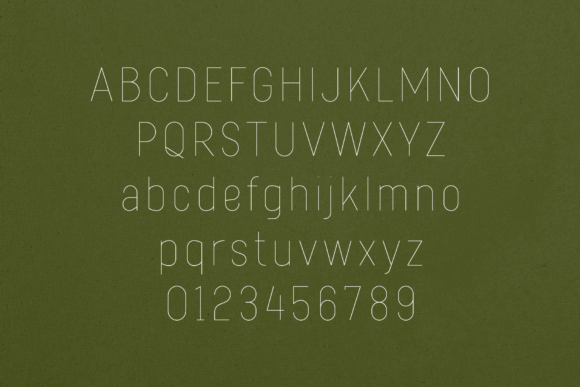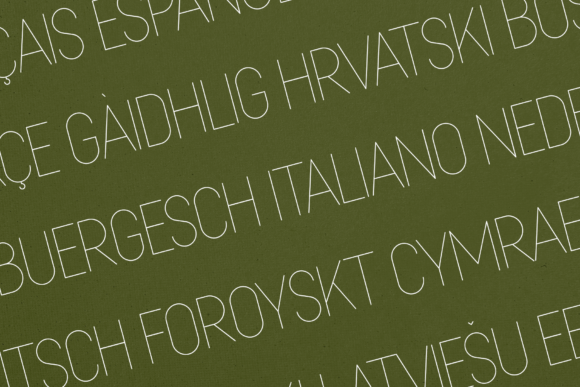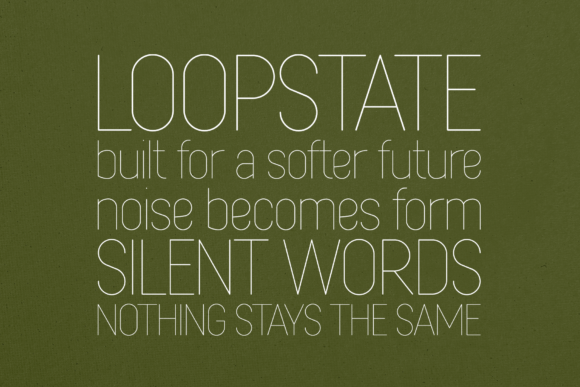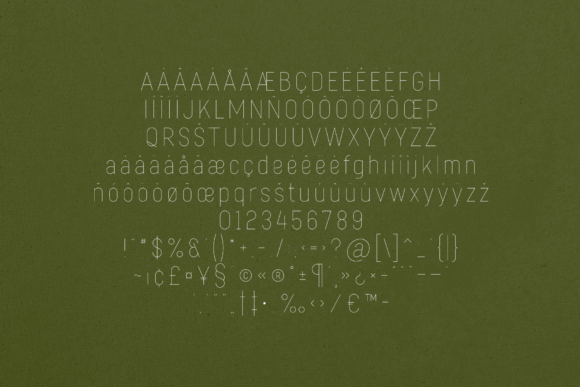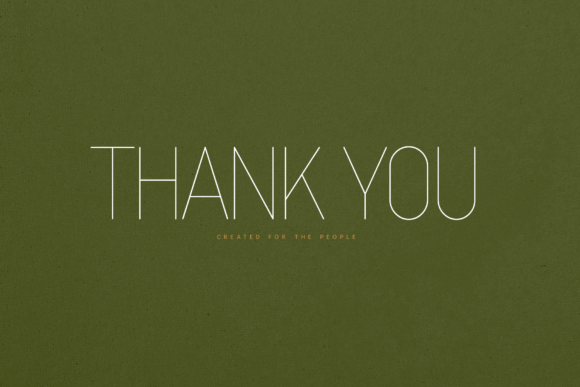
Have you ever stared at a blank page, wondering which font will bring your design to life? It’s a moment we’ve all experienced – the thrill of creation, the fear of making the wrong choice. But what if you could find a font that effortlessly elevates your work, making it stand out in a crowded world?
Enter the Azora Font, a stunning sans serif design that exudes elegance and precision. This clean, modern font is perfect for contemporary branding, editorial layouts, and posters, making it an invaluable tool for designers seeking to create refined typography projects.
The Azora Font’s airy structure, balanced proportions, and support for multilingual characters make it a versatile and valuable asset for any design project. Whether you’re working on a UI design or a creative composition, this font is sure to impress.
Azora Font Key Features
- Font Family: Azora comes in multiple font styles, including Azora Regular, Azora Italic, Azora Bold, and Azora Bold Italic.
- Unique Characteristics: Azora Font features a unique blend of modern and classic elements, with a focus on readability and aesthetic appeal.
- Language Support: Azora Font supports a wide range of languages, including Latin, Cyrillic, and Greek scripts.
Azora Font Review
Overall, I’m really impressed with the Azora Font. Here are some things that I think work well: ✨
- Legibility: The font is highly legible, making it perfect for long blocks of text.
- Neutral style: The Azora Font has a neutral, clean style that works well for a variety of applications.
- Cultural relevance: The font is inspired by Arabic and Latin scripts, making it a great choice for projects that need to cater to a diverse audience.
- Lack of expressiveness: The Azora Font is a bit too neutral for my taste, which makes it less expressive than some other fonts.
- Not ideal for headlines: While the font is great for body text, it’s not the most attention-grabbing choice for headlines.
Overall, I think the Azora Font is a solid choice for designers who need a clean, legible font for body text. While it may not be the most exciting choice, it gets the job done and is easy to read. I’d definitely consider using it again in the future.
Tips for Getting the Most Out of Azora Font
Use Azora Font for headings and titles to create a sense of hierarchy and emphasis.
Experiment with different font sizes and styles to create visual interest and contrast.
Combine Azora Font with other fonts and design elements to create a unique and eye-catching design.
Azora Font is perfect for:
Creating elegant and sophisticated designs.
Adding a touch of luxury and sophistication to your branding and marketing materials.
Designing high-end fashion and lifestyle products.
Alternatives to Azora Font
Montserrat is a sans-serif font designed for digital use. It’s perfect for creating clean and modern designs. Montserrat is more geometric and has a more modern feel compared to Azora Font, which is more elegant and sophisticated.
Use Montserrat for: Modern digital designs, logos, and titles that require a clean and sleek look.
Lato is a sans-serif font designed for digital use. It’s highly readable and suitable for body text. Lato has a more neutral feel compared to Azora Font, which has a distinctive elegance.
Use Lato for: Body text, articles, and documents where readability is crucial.
Open Sans is a sans-serif font designed for digital use. It’s highly readable and suitable for body text. Open Sans has a more neutral feel compared to Azora Font, which has a distinctive elegance.
Use Open Sans for: Body text, articles, and documents where readability is crucial.
Merriweather is a serif font designed for print use. It’s perfect for creating elegant and sophisticated designs. Merriweather has a more classic feel compared to Azora Font, which is more modern.
Use Merriweather for: Print materials, books, and designs that require a classic and elegant look.